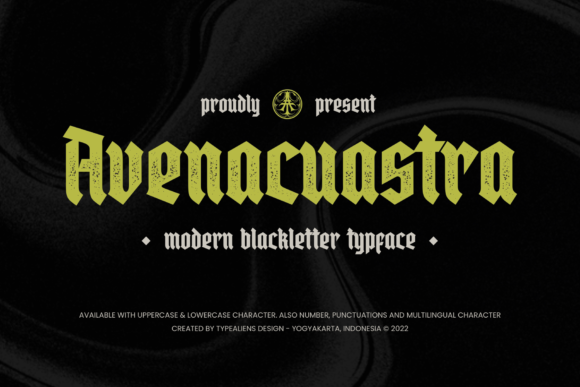
The Hunt for the Perfect Font: Discovering Avenacuastra
I still remember the frustration of scrolling through font after font, searching for the perfect one to bring my design project to life. As a designer, I’ve had my fair share of late nights and caffeine-fueled sessions, trying to find that one font that captures the essence of my vision. It was during one of those moments that I stumbled upon Avenacuastra, a bold and authentic blackletter font that instantly caught my attention.
A First Impression: What Makes Avenacuastra Special
Avenacuastra is more than just a font – it’s a statement piece. With its vintage style and bold, blackletter design, it’s perfect for creating classic or retro designs that demand attention. Whether you’re working on a liquor branding project, designing a logo for a studio tattoo artist, or creating a vintage-inspired poster for a classic motorcycle, Avenacuastra is the perfect choice.
So, what makes Avenacuastra stand out from the rest? Here are a few things I love about this font:
• ✨ Bold and authentic blackletter design that commands attention
• ✅ Vintage style that’s perfect for classic or retro designs
• 🔥 Highly legible even at smaller font sizes
• 🌟 Unique character set that adds a touch of personality to your designs
Of course, no font is perfect, and Avenacuastra has a few quirks to be aware of:
• 🤔 Limited use in digital media – while Avenacuastra looks great in print, it may not be the best choice for digital applications where legibility is key
• ⚠️ Some characters may require manual kerning to achieve optimal results
Exploring Alternatives: Similar Fonts to Avenacuastra
While Avenacuastra is a unique font, there are other options to consider. Here are a few similar fonts and when to use them:
• Fraktur: A classic blackletter font with a more ornate design, perfect for formal or traditional projects
• Textur: A elegant blackletter font with a more refined look, suitable for luxury brands or high-end designs
• Old English: A bold and rustic blackletter font, great for creating a vintage or distressed look
• Uncial: A elegant and refined blackletter font, perfect for creating sophisticated or high-end designs
The Story Behind Avenacuastra: Designer Inspiration
The story behind Avenacuastra is one of passion and dedication. Imagine a designer who’s spent years studying the art of blackletter typography, pouring over ancient manuscripts and experimenting with different letterforms. This designer, driven by a desire to create a font that’s both authentic and bold, spends countless hours refining the design, testing it against different backgrounds and applications. The result is Avenacuastra, a font that’s both a tribute to the past and a statement of modern style.
Here are a few frequently asked questions about Avenacuastra:
Q: What type of projects is Avenacuastra best suited for?
A: Avenacuastra is perfect for classic or retro designs, such as liquor branding, studio tattoos, or classic motorcycles.
Q: Can I use Avenacuastra for digital media?
A: While Avenacuastra can be used for digital media, it may not be the best choice for applications where legibility is key.
Q: Does Avenacuastra support OpenType features?
A: Yes, Avenacuastra supports OpenType features like ligatures and stylistic alternates.